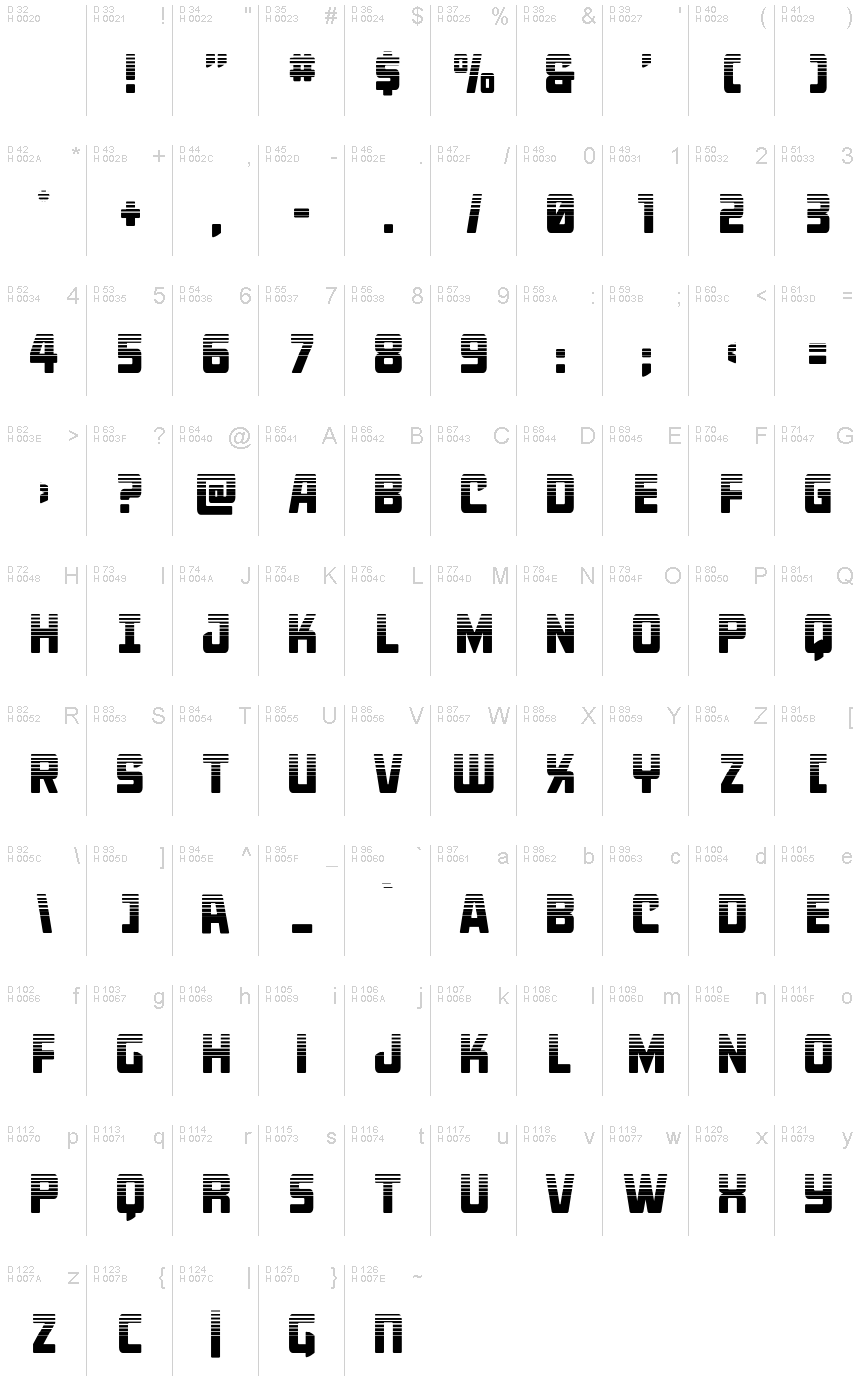
Quicky Nick Straight Halftone
Quicky Nick's captivating design exudes a bold, techno-inspired aesthetic. This striking display font, crafted by Iconian Fonts, features a sleek, halftone appearance that commands attention. Its sharp, angular forms and distinct contrasting lines create an eye-catching, futuristic impression, making it a compelling choice for a range of modern design projects.
Quicky Nick's versatility shines through its ability to seamlessly integrate into diverse design contexts. Its strong, attention-grabbing presence makes it an excellent selection for branding, packaging, and digital interfaces, where it can effectively convey a sense of technological sophistication and innovation. Furthermore, the font's dynamic personality lends itself well to the creation of dynamic, impactful typographic compositions in areas such as posters, event materials, and advertising campaigns.